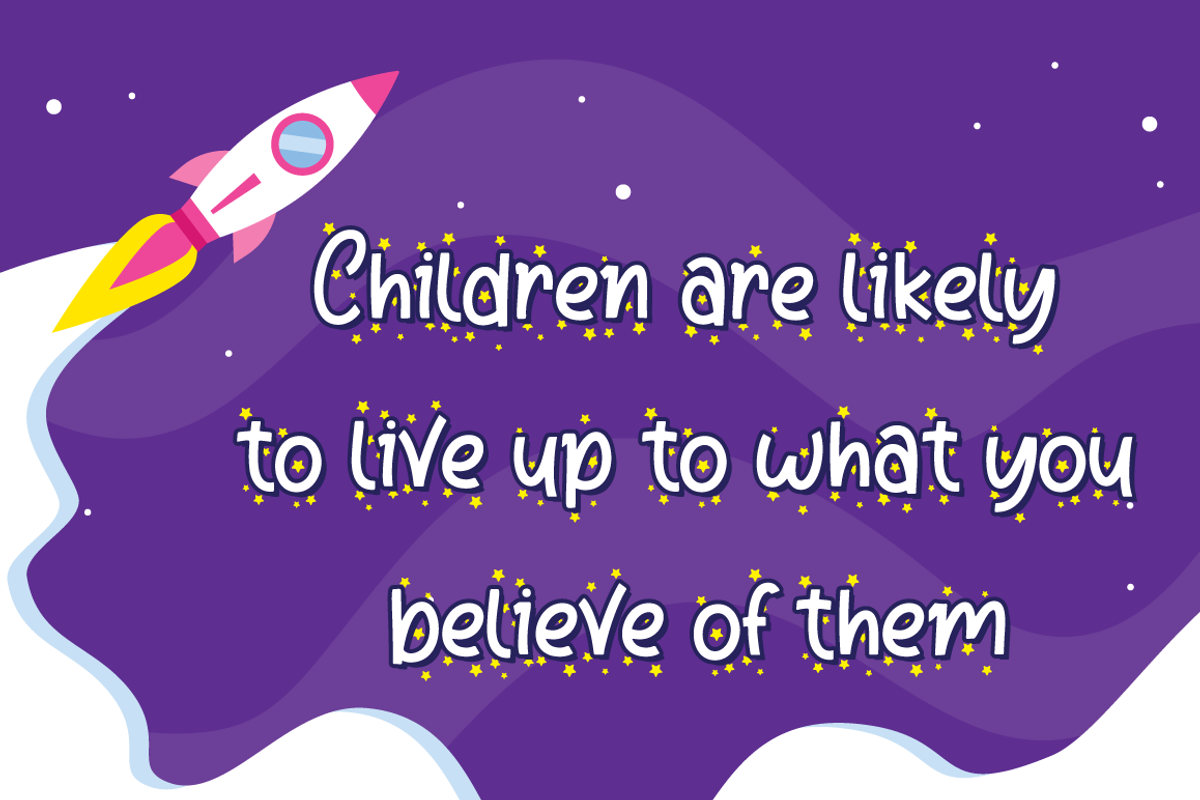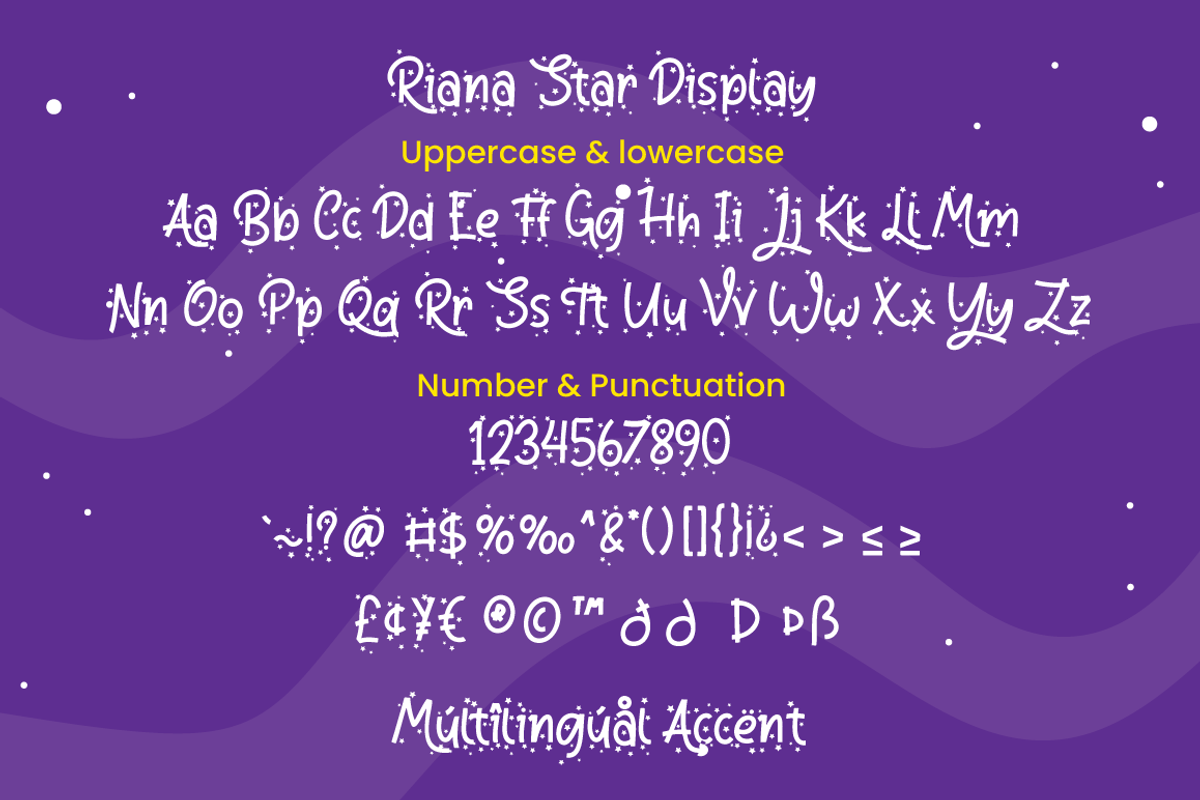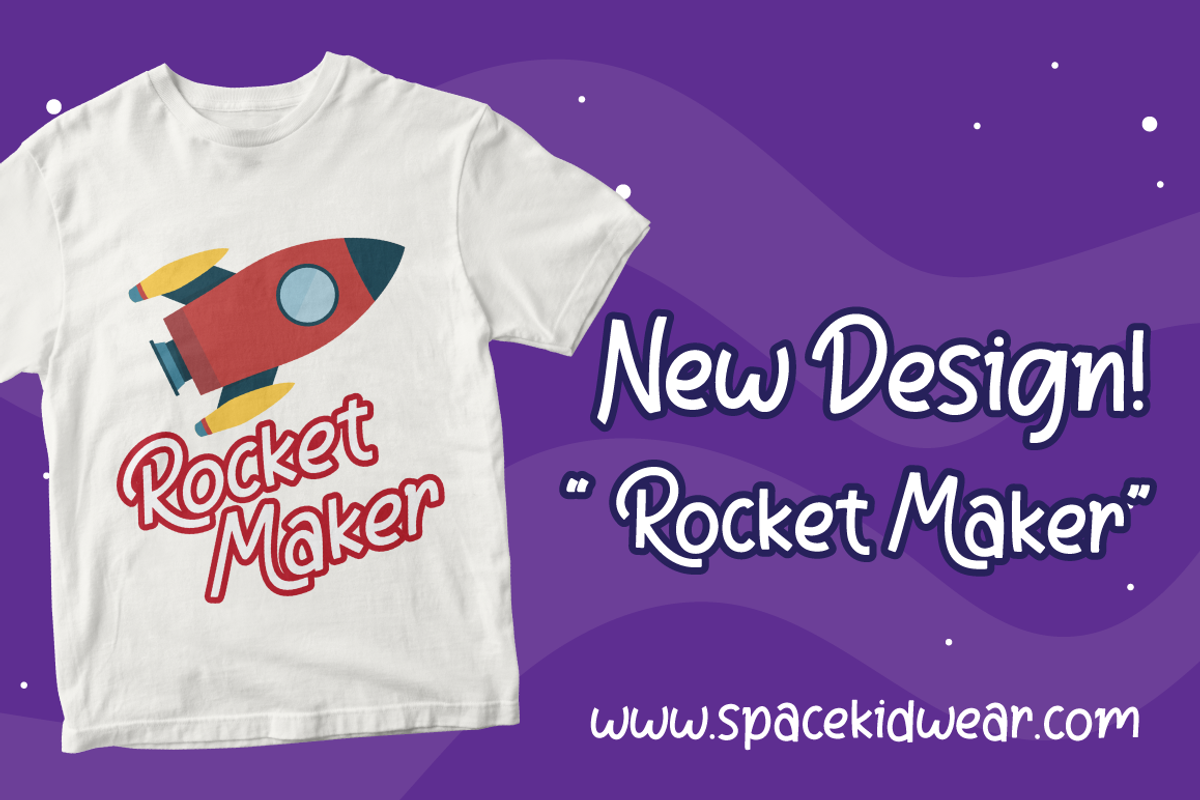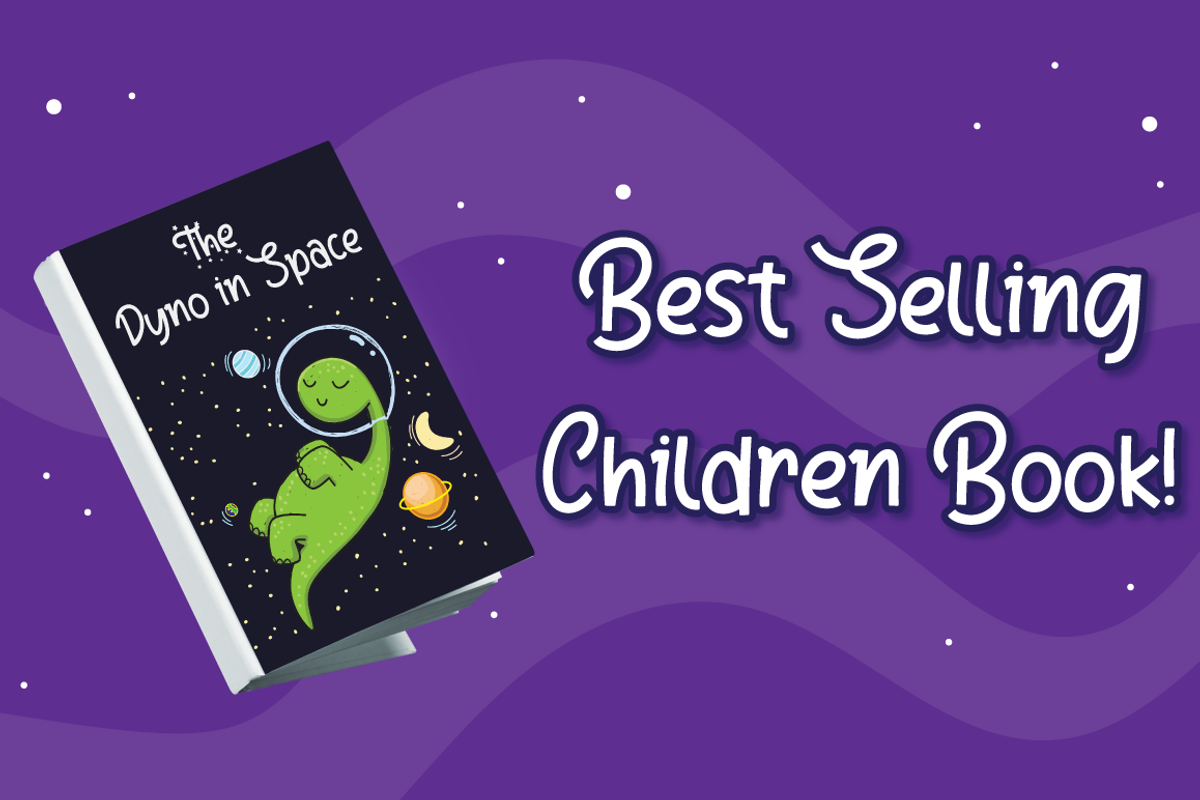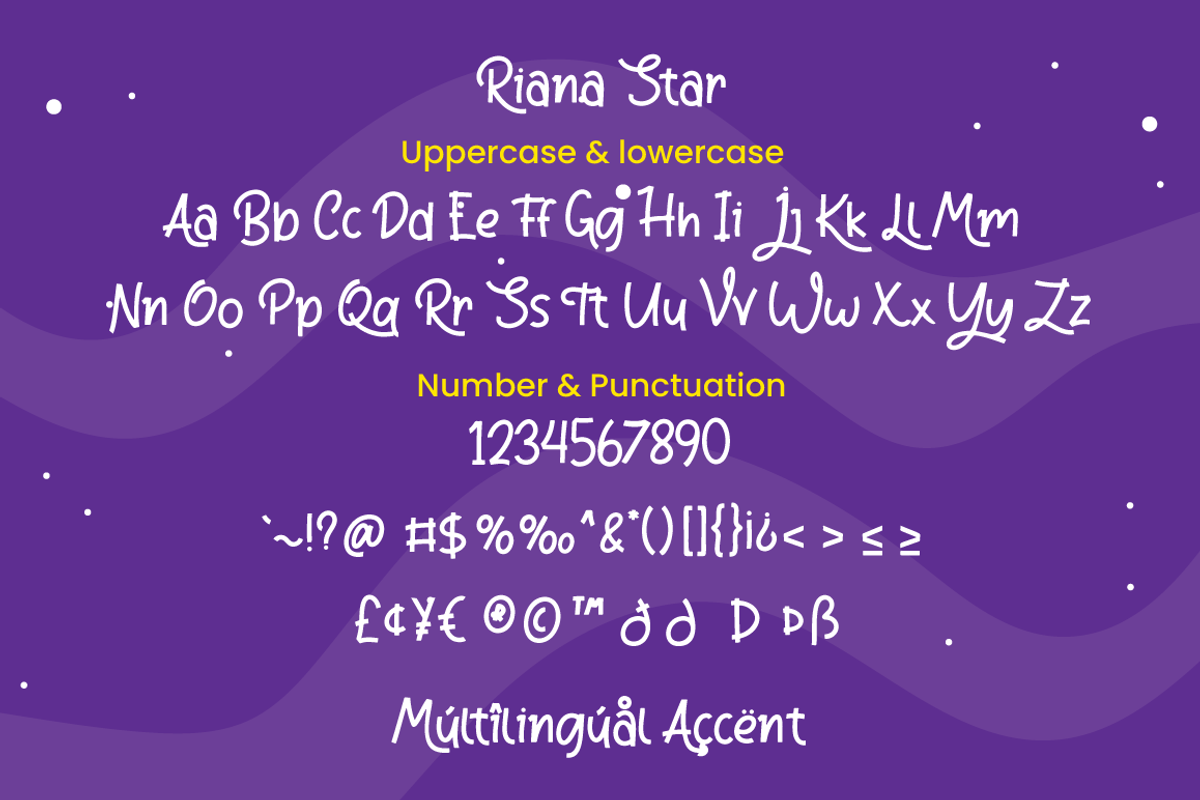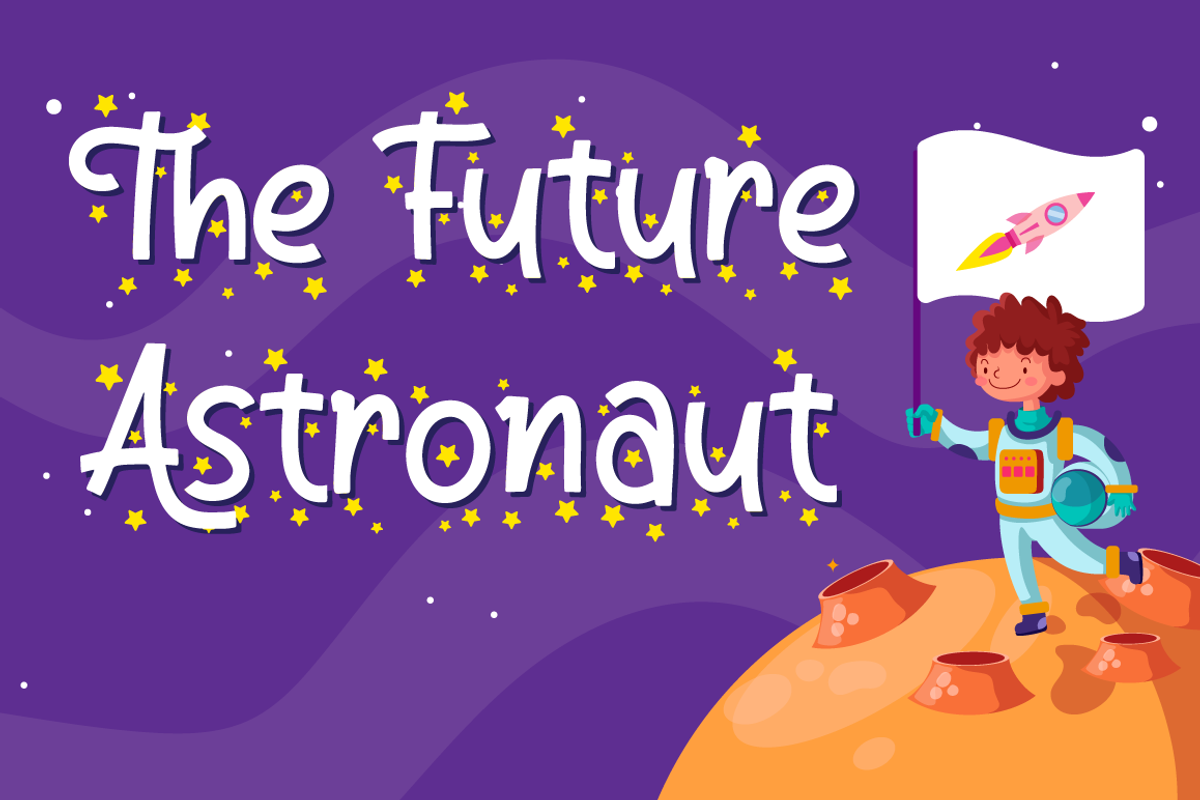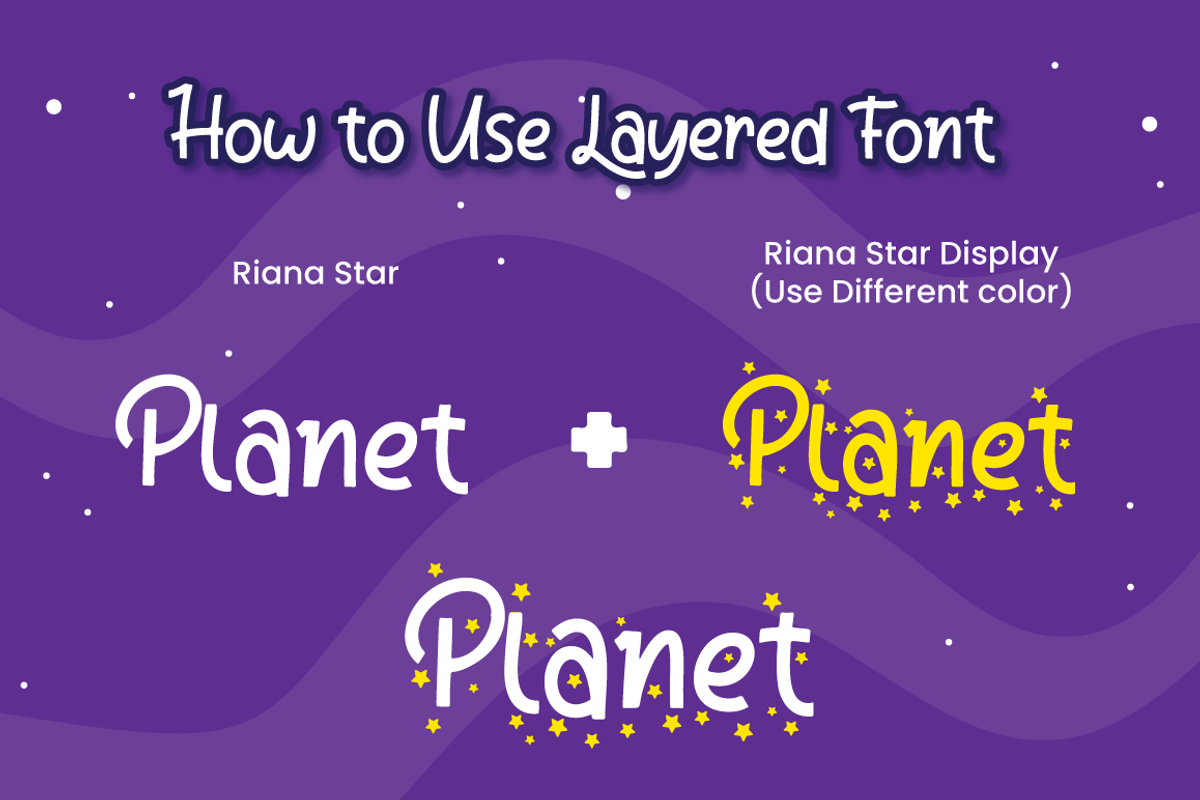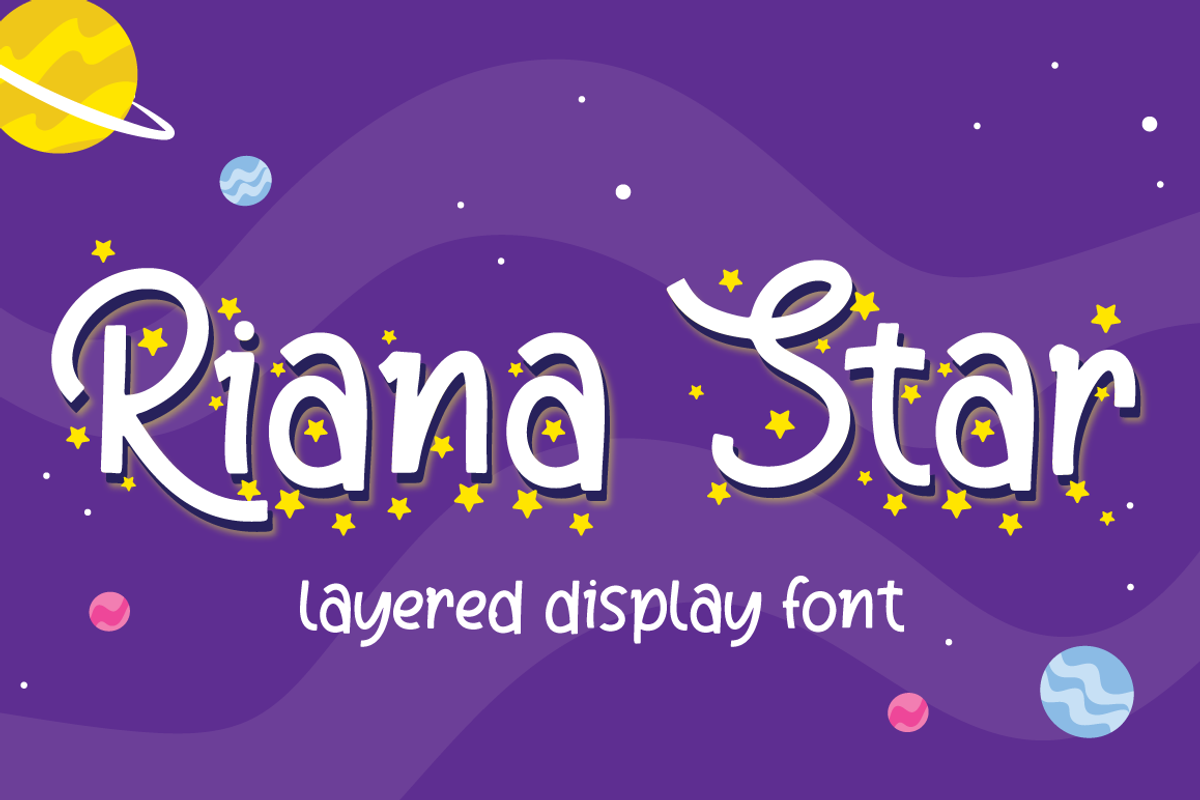
Riana Star - Display Font
Introducing Riana Star - Inspired by Star on the space & astronaut with rocket, Riana Star is handwritten font cursive that perfect for children product. come with star layered font, make combination of this font to create amazing design!
Two style Font: Handwritten & Display
Riana Star is perfect for children product, branding, logo, invitation, stationery, wedding, product packaging, merchandise, monogram, blog design, game titles, cute style design, Book/Cover Title and more.